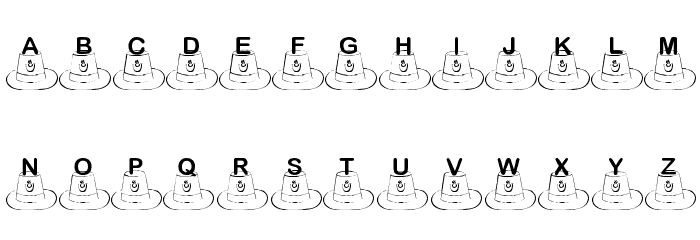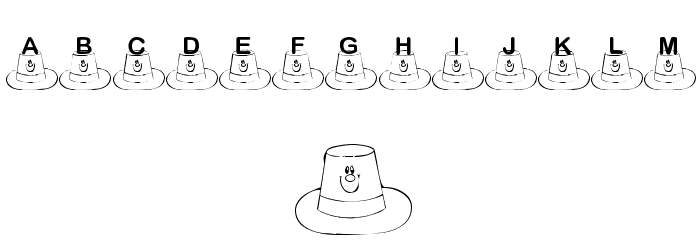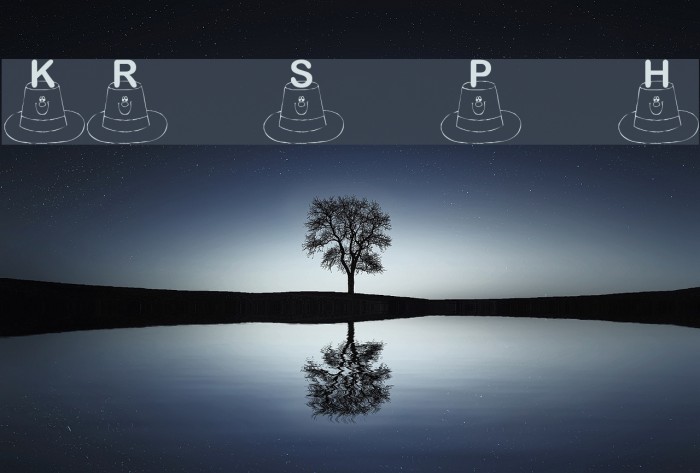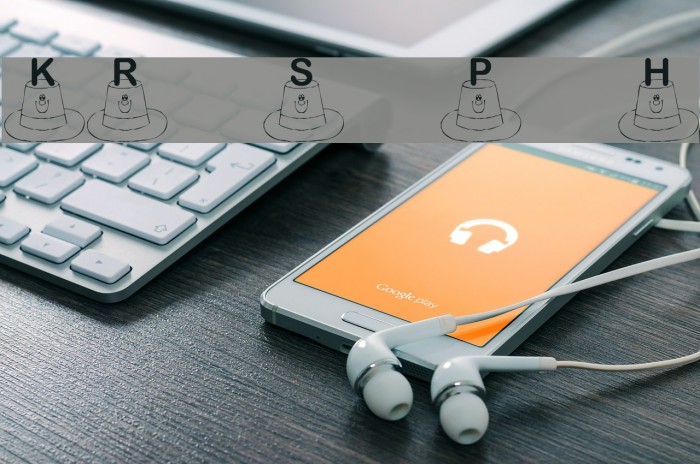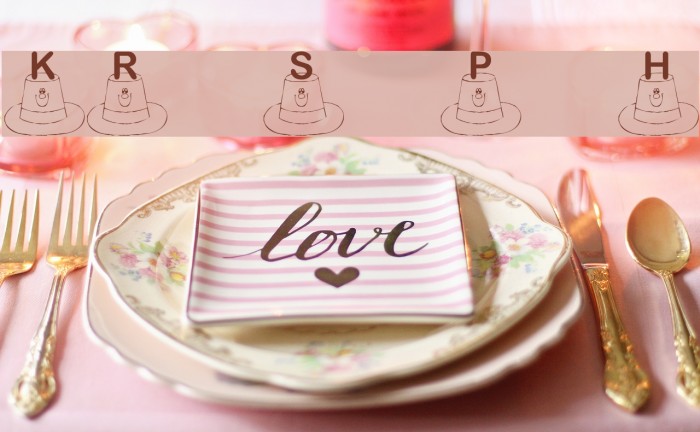
KR St. Patty's Hat Font
This whimsical font features each letter sitting atop a cartoonish leprechaun hat, complete with a smiling face and a buckle. The uppercase letters are bold and clear, providing a playful contrast to the decorative hat illustrations. The font is designed to evoke a sense of fun and festivity, perfect for themed events or holiday celebrations. The consistent use of the hat motif across all characters adds a unique and cohesive style, making it ideal for projects that require a touch of humor and creativity.
A playful font with letters on cartoon leprechaun hats.
- Proposed Projects: Ideal for St. Patrick's Day invitations, festive banners, children's party decorations, or any project needing a whimsical touch.
- Overall Style: Whimsical, Festive
- Use Case: Headlines, Invitations, Themed Decorations